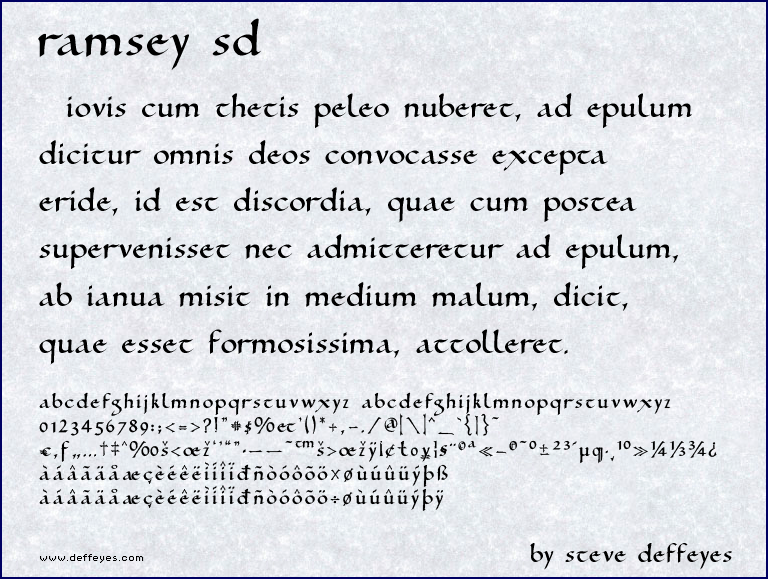
Font name: | Ramsey SD |
Categories | Gothic, Celtic |
Author: | Steve Deffeyes |
Note by Steve Deffeyes | |
Based on the 10th century Ramsey Psalter. The Victorian calligrapher Edward Johnston felt this was the most perfect example of lettering, and based his Foundational Hand on it. All lower-case, as that's how body-text was written at the time. Newly finished in Aug-2009. |